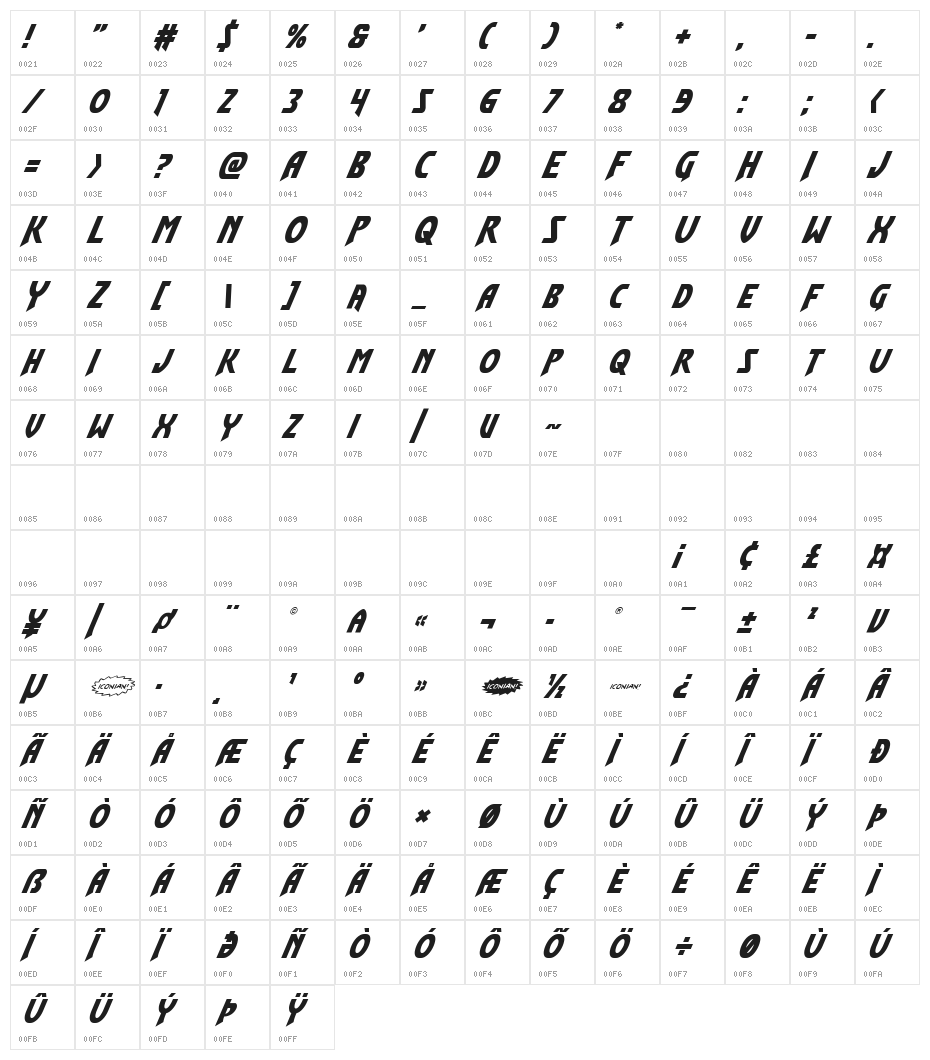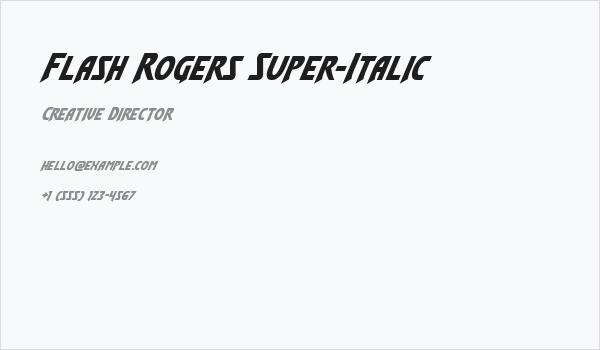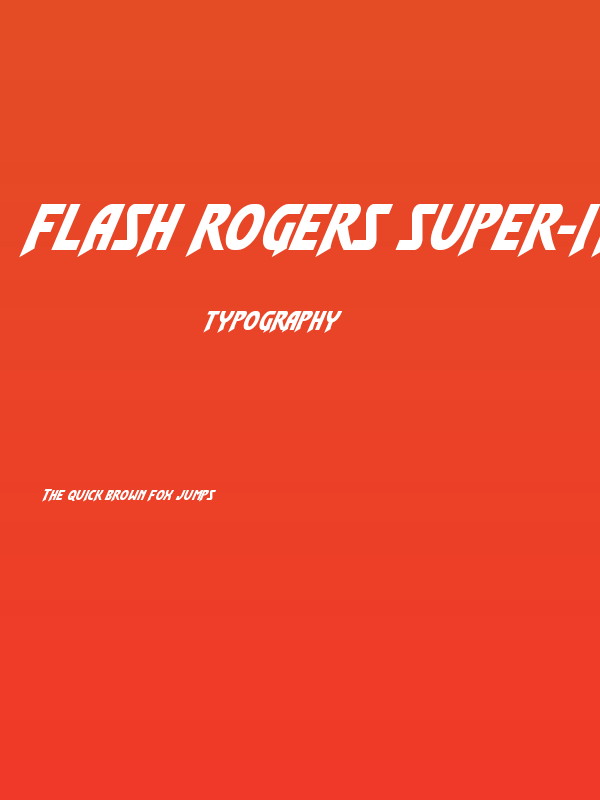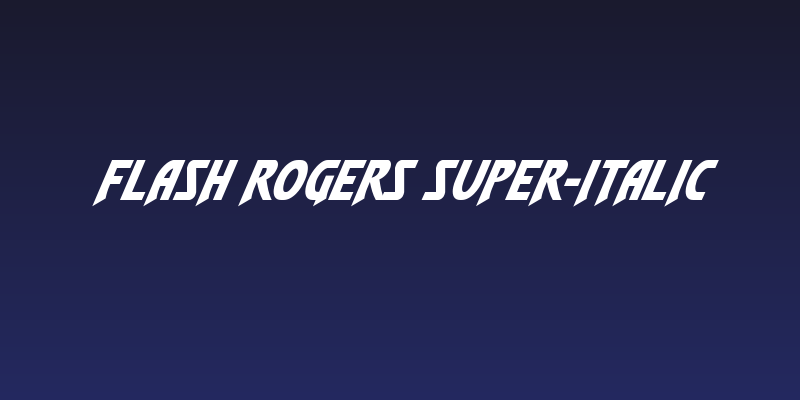
Flash Rogers Super-Italic Font
Flash Rogers Super-Italic Description
This font features a dynamic and bold italic style with sharp, angular edges that convey a sense of speed and energy. The uppercase and lowercase letters maintain a consistent slant, enhancing the italicized effect. The numbers and special characters are designed to match the overall aesthetic, making them ideal for attention-grabbing designs. The strokes are thick and uniform, providing a strong visual impact. The font's unique style is suitable for projects that require a modern and energetic look.
| Proposed Projects | Ideal for sports branding, action-themed posters, video game titles, and dynamic logo designs. |